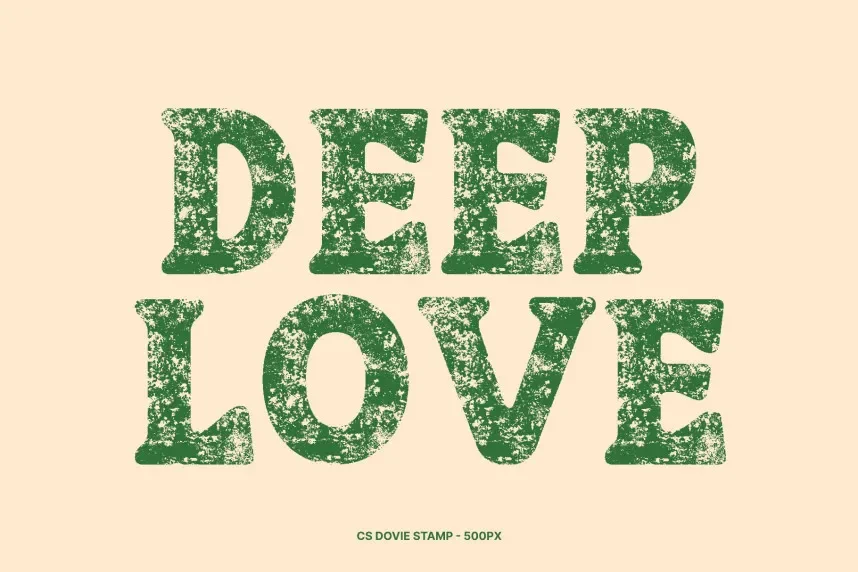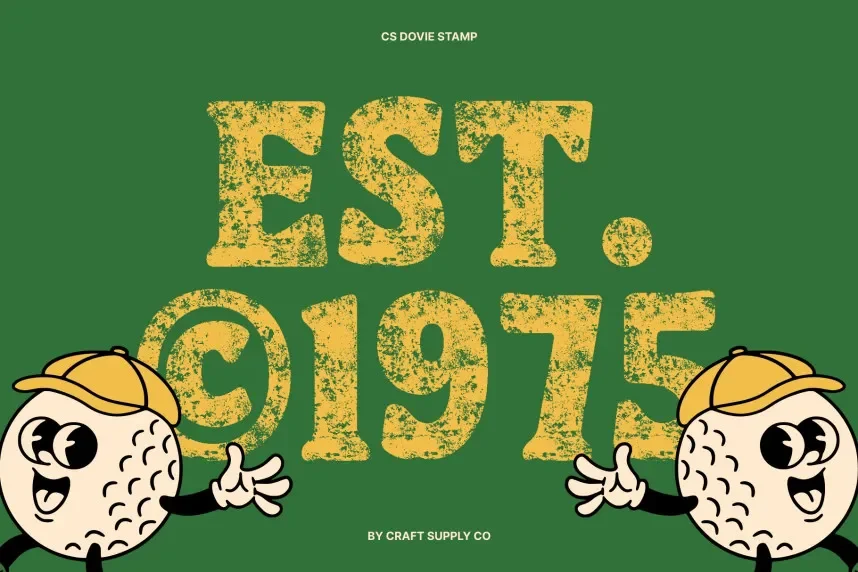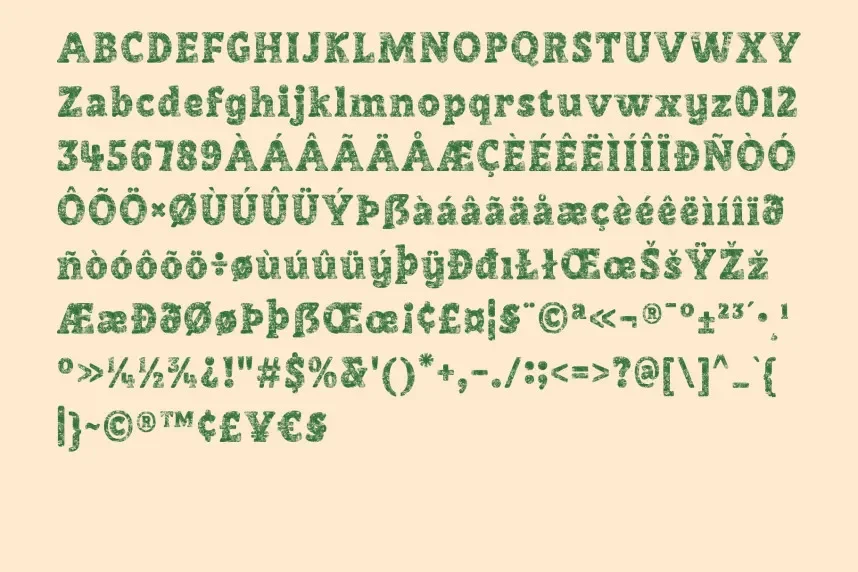
CS Dovie Stamp Font is a playful, script-based font with a hand-drawn look. Its rough edges and fluid curves make it suitable for projects that need a casual, personal touch like invitations, creative branding, or social media designs.